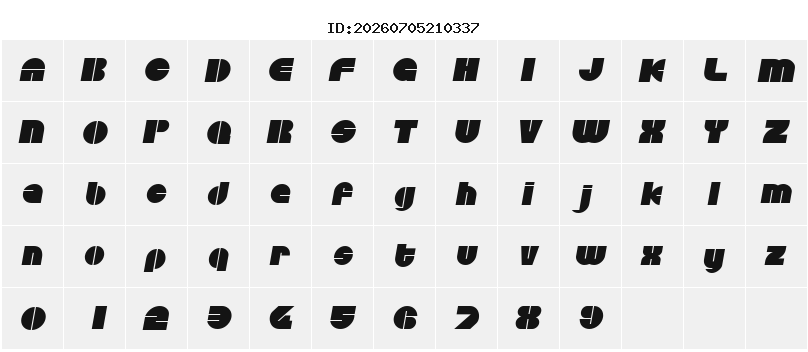
• Font Name: Disandat SF
• Font ID: Altsys Fontographer 3.5 Discotalic
• Full Font Name: Disandat SF Italic
• PostScript Name: DisandatSF-Italic
Disandat SF.ttf is a modern, elegant sans-serif font designed for ultimate readability and visual harmony. Perfect for branding, headlines, web design, and print materials.